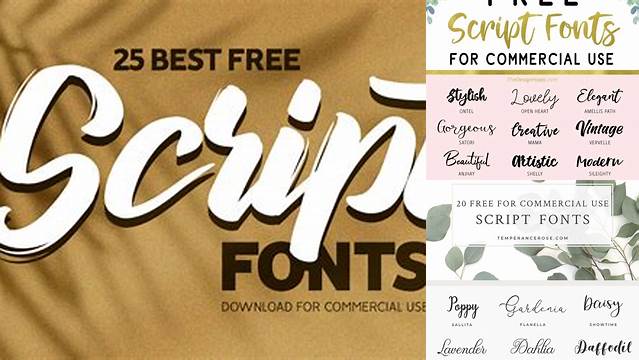
Download Free Script Fonts For Commercial Use
Hey everyone! Are you on the hunt for some awesome fonts for your next project, but don't want to break the bank? Well, you're in luck! This article is all about free script fonts for commercial use. That's right, you can use these beautiful, stylish fonts for your business, your website, your marketing materials, and so much more, without having to worry about licensing fees. Let's dive in and explore some amazing options that will add a touch of elegance and personality to your designs. Ready to get started, guys? Let's do this!
Free Script Fonts for Commercial Use: The Ultimate Guide
When it comes to finding free script fonts for commercial use, the options are vast and varied. From elegant calligraphy-inspired styles to playful, modern handwritten fonts, there's something for every project imaginable. But with so many choices, it can be overwhelming. This guide will walk you through everything you need to know, helping you discover the perfect fonts and use them confidently in your commercial endeavors. We'll cover where to find these gems, what to look out for in the licensing agreements, and how to make the most of these beautiful typefaces in your designs. This way, you can create professional-looking projects without spending a fortune on fonts.
The Appeal of Script Fonts in Commercial Design
Script fonts, with their flowing lines and elegant curves, possess a unique charm that can instantly elevate a design. Whether you're creating a logo, designing a website, or crafting marketing materials, a well-chosen script font can make a significant impact. Its ability to evoke feelings of sophistication, creativity, and personalization makes it a favorite among designers and businesses alike. The right font can make your brand stand out from the crowd. Using a script font adds a human touch to your designs, making your brand seem more friendly and relatable. Think about how a handwritten note feels compared to a typed email. A script font brings a similar sense of warmth and intimacy to your projects.
Top 10 Free Script Fonts for Commercial Use: A Curated List
Okay, here is a list of some of the best free script fonts for commercial use, handpicked to give your designs a professional and stylish look. Each font brings its own unique flair, from classic elegance to modern chic. Take a look and see which ones fit your vision!
1. Great Vibes
Great Vibes is a classic, elegant script font that exudes sophistication. Perfect for wedding invitations, branding projects, and any design that requires a touch of class, Great Vibes is known for its flowing strokes and beautiful curves. It has a timeless appeal. This font is widely available on Google Fonts, and its license permits commercial use, making it a reliable choice. It's easy to read, even at smaller sizes. Great Vibes is ideal for logos, headers, and any design where you want to create a premium look and feel. It brings a touch of handwritten elegance that instantly adds character.
2. Dancing Script
Dancing Script is a lively and playful script font, designed to look like handwritten text. It’s an excellent choice for projects that need a casual, friendly vibe, such as greeting cards, social media graphics, and informal invitations. Its bouncy appearance adds a sense of fun. The license for Dancing Script typically allows commercial use, so you can use it in your business projects without worry. Dancing Script's informal style makes it an excellent choice for adding a personal touch to your designs. Its versatility makes it suitable for a wide range of applications, from website headers to social media posts.
3. Sacramento
Sacramento is a beautifully condensed script font inspired by classic American signage. Known for its clean lines and readability, Sacramento is an excellent choice for logos, headlines, and any design that needs a vintage touch. It is stylish and versatile. The commercial use license makes it suitable for business projects, and its elegant appearance adds a professional touch. Sacramento provides a sense of nostalgia. It can be used in many ways; for example, this font works wonders for creating a retro or vintage aesthetic, adding a unique charm to your designs.
4. Pacifico
Pacifico is a bold, retro-inspired script font reminiscent of 1950s surf culture. This font is great for a fun, energetic vibe and works well in designs that need a bit of playfulness. Pacifico is a strong statement, and it adds instant personality. With its commercial-use license, Pacifico is perfect for businesses looking to create a memorable brand identity. Pacifico's distinctive style makes it ideal for logos, posters, and web design. It helps create an eye-catching look.
5. Playfair Display
Playfair Display, although not exclusively a script font, has a companion italic style that can be used to create a beautiful script effect. Known for its elegance, Playfair Display is suitable for headings, titles, and other display uses. It has a timeless aesthetic. While the main font is a serif, the italic version can mimic script fonts. This combination offers versatility in your designs. Always confirm the commercial use rights, but this is often permitted. Use the italic version to enhance the visual appeal of your designs and add a touch of sophistication.
6. Lobster
Lobster is a bold and eye-catching script font, known for its unique character and distinctive style. Lobster is great for making a strong visual statement, and it’s perfect for projects that need to stand out. It's easily recognizable and memorable. It's a great choice for branding projects, logos, and headings. Check its commercial use license, and you can be confident you're using a font that's both stylish and compliant with legal standards. Its versatility allows it to be paired with other fonts. Using it in your projects will make your design a success.
7. Amatic SC
Amatic SC is a hand-drawn, all-caps font with a casual script feel. Its friendly and informal style makes it perfect for projects that need a touch of playfulness. It looks like it's handwritten. It can be great for social media graphics, website headers, and informal branding. Confirm the commercial use license, and you can confidently use it in your business projects. Amatic SC is perfect if you want to add personality and a unique touch to your designs. Its friendly and informal style makes it a versatile choice for various projects.
8. Satisfy
Satisfy is a beautifully flowing script font that exudes elegance and charm. Its graceful curves and smooth strokes make it an excellent choice for projects that require a touch of sophistication, such as wedding invitations, logos, and branding materials. Satisfy enhances visual appeal. It's often available for commercial use, allowing you to use it in your business projects without worry. This font adds a luxurious touch to your designs. It's ideal for creating an impression of elegance and refinement. The elegance of Satisfy makes it an excellent choice to convey a message of sophistication and beauty.
9. Indie Flower
Indie Flower is a charming, handwritten-style script font that brings a touch of informality and personality to your designs. This font is perfect for projects that require a friendly and approachable feel, such as children's books, greeting cards, and informal invitations. Indie Flower is incredibly versatile. It’s often available for commercial use. It allows you to use it in your business projects without restrictions. Its versatility makes it suitable for various applications, from website headers to social media graphics. It’s a great choice for adding a personal and approachable touch to your designs.
10. Caveat
Caveat is a versatile and modern script font. It is designed with a clean and legible aesthetic. Caveat is suitable for a wide range of design applications, including logos, headlines, and body text. It is known for its readability and simplicity. Always verify the commercial use license to ensure it meets your project needs. This font will make your project look professional. It is a great choice for projects that need a friendly and modern touch. Caveat brings a balanced blend of style and practicality. It is a versatile choice, making it suitable for a wide array of design needs.
Tips for Using Script Fonts Effectively in Commercial Projects
When using free script fonts for commercial use, there are a few things to keep in mind to ensure your designs look professional and effective. Here are a few tips to help you get the most out of these beautiful fonts.
Pairing Script Fonts with Other Typefaces
Pairing script fonts with other typefaces can be a great way to create visual interest and balance in your designs. Choose a complementary font that contrasts with the script font in style and weight. Often, a clean, sans-serif font or a simple serif font works well to balance the flair of a script. The contrasting styles will make your designs more engaging. Make sure the fonts don’t clash, and the contrast is visually appealing. Experiment with different combinations to find what suits your project. A good pairing can create a visually harmonious design.
Optimizing Readability in Different Contexts
Readability is key, especially when using script fonts. Keep in mind that some script fonts can be difficult to read at smaller sizes or when used for large blocks of text. For body text, it is usually best to use a clearer, more legible font. If you want to use a script font for headings, make sure the font is large enough to be easily read. Adjust the letter spacing and line height to improve readability, especially in longer lines of text. Make your designs accessible by prioritizing readability. You can also test your designs in different contexts to ensure they are easy to understand for all audiences. The goal is to convey your message clearly.
Color and Background Considerations
The color and background of your design can significantly impact the visual appeal of your script fonts. The contrast between the font color and the background is very important. Use a dark font on a light background, or vice versa, for best readability. Consider the overall tone and style of your project when choosing colors. Dark backgrounds may not be suitable for every font. Experiment with different color combinations to find what complements your chosen script font. The color and background should enhance the beauty of your design, rather than detract from it.
Common Mistakes to Avoid with Free Script Fonts
While free script fonts for commercial use are a great resource, it's easy to make mistakes that can undermine your designs. Here are some common pitfalls to avoid.
Overusing Script Fonts
While a script font can add elegance and personality, avoid overusing them in your designs. Too much script can make your project look cluttered and difficult to read. The best practice is to use script fonts sparingly, typically for headlines, titles, or short phrases. Using it in moderation will help to keep your design clean. Balance the script with other fonts to create a visually appealing design. Remember, less is often more when it comes to script fonts.
Ignoring Kerning and Letter Spacing
Poor kerning (the spacing between individual letters) can make a script font look sloppy and unprofessional. Always pay attention to how the letters interact with each other. Adjust the kerning and letter spacing to ensure the font looks balanced and visually appealing. Many design software programs provide tools for adjusting kerning and letter spacing. Take advantage of these tools to improve the readability and aesthetics of your text. Careful kerning can transform a so-so design into an excellent one.
Neglecting Licensing Agreements
As mentioned earlier, neglecting the licensing agreements is a critical mistake. Always verify that the font license permits commercial use. Ignoring this can lead to legal issues. Make sure you understand the terms and conditions of the license. Check for any restrictions on the font's use. If you are unsure, always clarify with the font designer or the platform where you downloaded the font. It’s far better to be safe than sorry in these matters.
The Future of Free Fonts for Commercial Use
The world of free script fonts for commercial use continues to evolve. New fonts are constantly being developed and released, and the options available to designers are growing all the time. Here's what to expect in the future.
Emerging Trends in Script Font Design
Several trends are shaping the future of script font design. There’s a growing interest in handwritten-style fonts that provide a personal touch. Modern scripts are gaining popularity, with clean lines and geometric influences. The use of variable fonts is also increasing. These fonts allow for dynamic adjustments to weight, width, and style. Designers are creating innovative, expressive fonts. Stay informed about these trends and experiment with them. This way, you'll be at the forefront of design trends. The trends in font design will continue to evolve, providing designers with exciting new creative options.
The Role of AI and Font Generation
Artificial intelligence (AI) is starting to play a role in font design. AI tools can assist in the creation of new fonts, speeding up the design process and expanding the range of available fonts. AI can generate new typefaces or assist designers in refining existing ones. With this technology, we expect even more innovative font designs. This will likely expand the landscape of available options. AI will likely reshape how fonts are designed and used. This will lead to a more diverse and accessible design field. This technology will continue to transform the creative process.
The Growing Importance of Open-Source Fonts
Open-source fonts are becoming increasingly important, as they promote accessibility and collaboration within the design community. These fonts are often available under permissive licenses, allowing for free commercial use and modification. They foster creative freedom. They encourage the community to experiment and innovate. This helps designers to create and adapt fonts. Open-source fonts are a powerful resource that empowers designers and enriches the design landscape. The more open-source fonts, the greater the design opportunity.
Conclusion: Unleash Your Creativity with Free Script Fonts
There you have it! A comprehensive guide to free script fonts for commercial use. With the right knowledge, you can elevate your designs. I hope you feel ready to go out there and unleash your creativity! Explore the fonts, read those licenses, and create amazing projects that make a lasting impact. Enjoy your design journey! Always remember to experiment and find the perfect fonts for your needs. Happy designing!
30 Unique Subheadings
Finding the Best Free Script Fonts for Your Commercial Projects: This section dives into the initial steps of finding high-quality, free script fonts for commercial use. It provides guidance on where to look, including reliable websites like Google Fonts, DaFont, and Font Squirrel. It emphasizes the importance of searching specifically for fonts licensed for commercial use to avoid potential legal issues. The subheading also introduces the concept of curating a diverse font library to suit various design needs. It encourages users to explore different styles and consider how each font complements the overall brand identity.
Understanding Commercial Use Licenses: What to Look For: This detailed section offers an in-depth look at the licensing agreements associated with free script fonts for commercial use. It explains the significance of understanding these agreements to ensure compliance and prevent potential legal complications. The discussion will clarify the key elements within licenses, such as permitted uses, restrictions, and attribution requirements. It's vital to clarify if the use covers a wide range of commercial purposes like marketing materials, website designs, and product packaging. The section will help readers interpret the legalese to avoid common pitfalls and navigate licensing terms effectively.
Top Platforms for Downloading Free Script Fonts: This section will spotlight the best platforms for discovering and downloading free script fonts for commercial use. It focuses on user-friendliness, the quality of fonts offered, and the ease of navigating licensing information. It will also provide valuable tips for searching and filtering fonts based on specific needs, like style, character set, and commercial use availability. By providing a concise list of reliable sources, it saves designers time and assures access to a diverse collection of fonts.
Evaluating Font Quality: Key Considerations for Commercial Projects: This part emphasizes the importance of font quality, including factors such as design, readability, and technical aspects. It guides designers on how to evaluate font design, ensuring that the selected script fonts have aesthetically pleasing forms and well-designed character sets. It also details the importance of legibility and how to assess the font's appearance in different sizes and contexts. Technical criteria, like font file formats and compatibility with various design software, will also be discussed. Quality fonts will help ensure a project's visual appeal.
Matching Script Fonts to Your Brand Identity: This section focuses on aligning the characteristics of free script fonts for commercial use with a brand's values, vision, and target audience. It helps designers understand how specific font styles, such as elegant calligraphy or modern handwritten fonts, can communicate a brand's personality effectively. It provides practical tips for conducting research and selecting fonts. Understanding how to create brand consistency helps to make your audience remember your brand.
Best Practices for Font Installation and Management: This section focuses on the technical aspects of font management. It provides insights on how to install free script fonts for commercial use correctly on various operating systems and software platforms. It explores techniques for organizing fonts in your design software, so they are easy to find and use. It includes creating font libraries to keep track of fonts and licenses. Knowing how to manage your fonts will help you maintain consistency.
Integrating Script Fonts into Website Designs: This section will show how to use free script fonts for commercial use in web design, focusing on best practices to maintain visual appeal and performance. It covers how to use the fonts within CSS styling and ways to optimize fonts to ensure they load fast. This also includes guidance on ensuring legibility and responsiveness across different devices. Using web-safe fonts and other methods to improve the user experience will also be addressed. The result of these practices will be an appealing website.
Creating Eye-Catching Logos with Free Script Fonts: This section will delve into logo design using free script fonts for commercial use. It offers guidelines on selecting appropriate fonts that resonate with the brand's personality. It includes advice on combining script fonts with other design elements and the importance of testing different logo versions to ensure they are appealing. The section also discusses the legal considerations and licensing requirements when using script fonts in commercial logos, ensuring projects are compliant.
Designing Effective Marketing Materials with Script Fonts: This section provides guidance on using free script fonts for commercial use in marketing materials, such as brochures, posters, and social media graphics. It includes tips for integrating script fonts into layouts while maintaining brand consistency. It addresses choosing fonts for different purposes, like headlines and body text. The goal is to create visually engaging and effective materials that resonate with the target audience. The practical applications and examples of how to use script fonts in marketing will be highlighted.
Typography Guidelines: Mastering Font Pairing for Commercial Use: This section provides a guide on creating professional-looking designs. It emphasizes how to pair free script fonts for commercial use with other fonts to enhance visual appeal. It discusses the importance of font hierarchy, selecting fonts that complement each other, and understanding the nuances of contrast and balance. It covers the use of font pairings to create a cohesive design system. This helps to improve readability and brand consistency.
Ensuring Readability and Legibility in Script Font Usage: This section provides guidance on using free script fonts for commercial use effectively to ensure their readability and legibility. It addresses the challenges associated with using script fonts in different contexts. It offers techniques to improve clarity, such as adjusting font sizes, kerning, and line spacing, while also advising on appropriate color choices and backgrounds to enhance the text's visibility. Proper font usage allows a designer to use script fonts without sacrificing user experience.
Testing and Refining Your Designs with Script Fonts: This section will delve into the critical process of testing designs that include free script fonts for commercial use. It focuses on the importance of assessing how the chosen font performs on different devices, screens, and print materials. This includes gathering user feedback to ensure that the design is visually appealing and engaging. The goal is to refine and optimize the design for maximum impact, making the font selection process very valuable to commercial endeavors.
Legal and Ethical Considerations of Using Free Fonts: This section provides detailed information on the legal and ethical aspects of using free script fonts for commercial use. This involves adhering to licensing agreements and ensuring that designs are used legally and responsibly. It covers various aspects, such as copyright, trademark laws, and how to avoid intellectual property infringement. It encourages designers to respect the intellectual property rights of font designers and to comply with the applicable laws and regulations.
Staying Updated on New Font Releases and Trends: This section discusses how to stay up-to-date with the latest font releases and design trends to enhance your design projects. It shows designers how to find reliable sources of information on new fonts and how to stay informed on current trends. The section will provide guidance on integrating new fonts into existing designs and adapting to changing preferences. It encourages continuous learning and experimentation to maintain a competitive edge in the design field.
Script Fonts and Accessibility: Design for All Audiences: This section focuses on how to design with free script fonts for commercial use while adhering to accessibility guidelines. It will explain how to ensure that your designs are inclusive and readable for all users. This includes optimizing font sizes, color contrast, and text spacing to improve readability for people with visual impairments. The goal is to make your designs inclusive and accessible to everyone.
Best Practices for Font File Management and Organization: This section is about the essential aspects of managing and organizing font files for your commercial projects. It includes tips and techniques for efficient font organization within your design software and on your computer. It covers naming and categorizing fonts, backing up your font libraries, and creating a system for managing font licenses. Properly managing your fonts will make your projects easier to manage.
Using Script Fonts in Branding and Corporate Identity: This section provides practical guidance on how to use free script fonts for commercial use within a brand. It covers ways of creating consistent and recognizable brand messaging, and it explains how to choose script fonts that reflect the brand's image. It emphasizes maintaining visual consistency across all branding materials to strengthen brand recognition and establish a solid brand identity. Using the correct font for your brand can establish a brand identity.
Script Fonts in Print vs. Digital: Adaptability and Best Practices: This section highlights the differences between using free script fonts for commercial use in print and digital media. It addresses how fonts appear in both formats and provides insights into optimizing fonts for each. This will include selecting fonts with good legibility and adjusting for print quality and screen resolution. The section highlights the adaptability of fonts and the value of testing your designs across different media to guarantee the best visual impact.
Avoiding Common Mistakes When Working with Script Fonts: This section will show the most frequent mistakes that designers make while using free script fonts for commercial use. This will cover issues such as overusing script fonts, not paying attention to readability, ignoring licensing terms, and not testing the font in different contexts. This also discusses ways of avoiding these issues. It provides practical advice for creating visually appealing and legally compliant designs by emphasizing how to avoid common errors in font selection and application.
Enhancing User Experience with Script Fonts in Design: This section discusses how to create positive user experiences with free script fonts for commercial use in your design projects. It shows how to optimize readability, legibility, and visual appeal. It provides recommendations for integrating script fonts into web design and other digital media. These include the use of proper font sizes, good color contrast, and well-balanced layouts to improve the user experience and guarantee that designs are engaging and easy to use.
Script Fonts and Cultural Sensitivity: Avoiding Misinterpretations: This section focuses on the importance of cultural sensitivity while using free script fonts for commercial use in design projects. It addresses potential cultural misinterpretations related to font choices and visual communication. It covers the use of script fonts in various cultures. It encourages designers to consider cultural nuances, conduct user research, and get feedback to ensure that designs are culturally appropriate and respectful of the intended audience.
Script Fonts and SEO: Optimizing Text for Search Engines: This section will show how to optimize text that uses free script fonts for commercial use for search engines. It provides guidance on selecting SEO-friendly fonts that are easily readable by search engines. This includes using alternative text for images of text, and the use of appropriate font sizes and layouts to enhance website visibility. These strategies will help your designs rank better in search results and boost their online presence.
The Role of Script Fonts in Storytelling and Visual Communication: This section will explore the role of free script fonts for commercial use in storytelling and visual communication. It will demonstrate how script fonts can evoke certain emotions, convey brand personalities, and strengthen brand storytelling. It will focus on how designers use fonts, colors, images, and layouts to communicate messages and create engaging experiences. The goal is to use script fonts for more storytelling.
Script Fonts and Mobile Design: Ensuring Responsiveness and Usability: This section provides best practices for using free script fonts for commercial use in mobile design. It provides insights on how to ensure that fonts appear correctly and are legible on different mobile devices. It focuses on creating responsive designs that adapt to various screen sizes and resolutions. It provides tips for optimizing font sizes, line spacing, and layouts to guarantee a seamless user experience on mobile platforms.
Script Fonts for Social Media: Creating Engaging Visual Content: This section shows how to use free script fonts for commercial use in social media design, creating engaging and shareable content. It provides tips for selecting fonts that fit with specific social media platforms and creating eye-catching visuals. It includes choosing fonts that reflect the brand identity and encourage audience interaction. These strategies will allow your brand to have an effective social media presence.
The Psychology of Script Fonts: How Fonts Influence Perception: This section focuses on the psychology of fonts and how free script fonts for commercial use influence how consumers perceive brands and messages. It explains how script fonts can evoke specific emotions and trigger various reactions. It provides guidance on aligning font choices with brand values and target audiences. The goal is to create designs that are more emotionally resonant and effectively communicate the brand message.
Future Trends: Script Font Design in the Digital Age: This section explores the current and upcoming trends in script font design and the evolution of free script fonts for commercial use in the digital world. It offers insights into new technologies like variable fonts, AI-driven font design, and the growing popularity of handwritten-style fonts. The goal is to prepare designers for the latest design trends and equip them with valuable knowledge for future endeavors. This information will give you a unique competitive edge.
Monetizing Your Design Skills: Using Script Fonts in Commercial Projects: This section provides guidance on using free script fonts for commercial use to monetize your design skills and earn an income. It discusses various methods such as freelancing, offering design services, creating and selling templates, and developing and selling custom designs. It offers ways to make money and create a successful career in design. It will help designers create profitable and fulfilling careers.
Script Fonts and Copyright Law: Protecting Your Designs: This section addresses copyright law in relation to designs that use free script fonts for commercial use. It offers guidance on how to protect your design from infringement. It explains copyright basics, intellectual property rights, and registering your work. The goal is to help designers protect their intellectual property. It will allow designers to understand and respect copyright laws.
Resources and Tools: Enhancing Your Script Font Design Workflow: This section is all about the essential resources and tools that can greatly enhance your design workflow. It showcases an extensive list of useful resources and tools for designers that use free script fonts for commercial use, which includes font management software, design software, and free online resources. The goal is to empower designers with a variety of resources and tools to optimize their workflow and elevate their overall productivity and creative output.